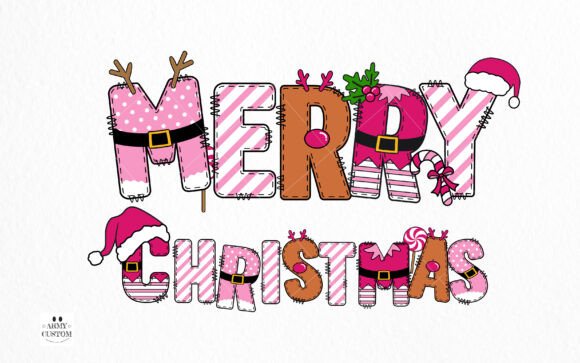
Christmas Army Bundle Font
Elevate your festive projects with the delightful ‘Themed Pink Christmas Font’. Imbued with a sense of whimsy, this font is a playful addition to your holiday design toolkit. Its jovial style makes it an ideal choice for creating vibrant holiday decorations or adding a dash of merriment to any design project. With the Christmas Elf Font, every letter spelled out becomes a joyous celebration, inspired by the adorable antics of Santa’s helpers. Indulge in the spirit of the holiday season with this charming, elfish font.The black version of this font is compatible with Cricut Design Space and other cutting machines.Note! The color version of this font is only compatible with certain design programs incl. PhotoShop, Illustrator, Silhouette, and Inkscape. The OTF and/or TTF files of the color version are not compatible with Cricut. For more information on how to use this type of font please check our Ultimate Font Guide .